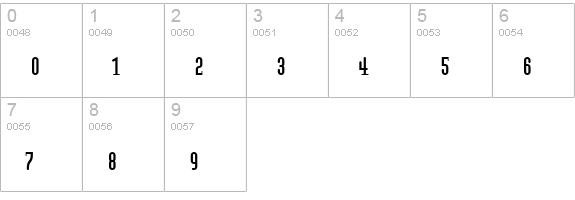
ModulaRoundSerifSmallCaps Regular Font Details
ModulaRoundSerifSmallCaps Regular is the standard, neutral variant in the ModulaRoundSerifSmallCaps typeface family \xE2\x80\x94 well suited to general body text, paragraphs, and standard typographic work.
ModulaRoundSerifSmallCaps Regular font is a charming and elegant typeface that combines classic serif elements with a modern twist. Its rounded edges and small caps add a touch of sophistication to any design project, making it perfect for headings, logos, and other display purposes. This versatile font is ideal for creating a polished and professional look, whether for print or digital media. With its clean lines and balanced proportions, ModulaRoundSerifSmallCaps Regular font exudes a sense of timeless elegance that will make your text stand out. Best of all, this font is available for free download at FontsMarket.com. So go ahead and give your projects a touch of class with ModulaRoundSerifSmallCaps Regular font today!